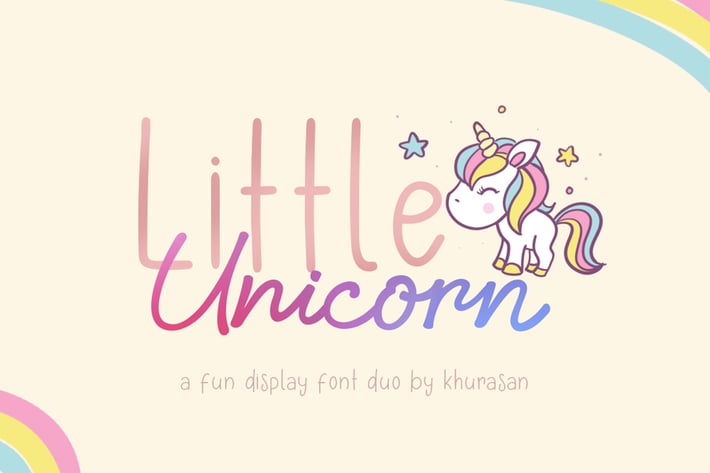
Little Unicorn Font Duo
khurasan
The Little Unicorn Font is a fun modern script font, fresh & modern style with Little Unicorn Sans font. You can combine script and sans to get amazing results. Little Unicorn Font suitable for logo, branding, greeting card, poster and any design that you create.